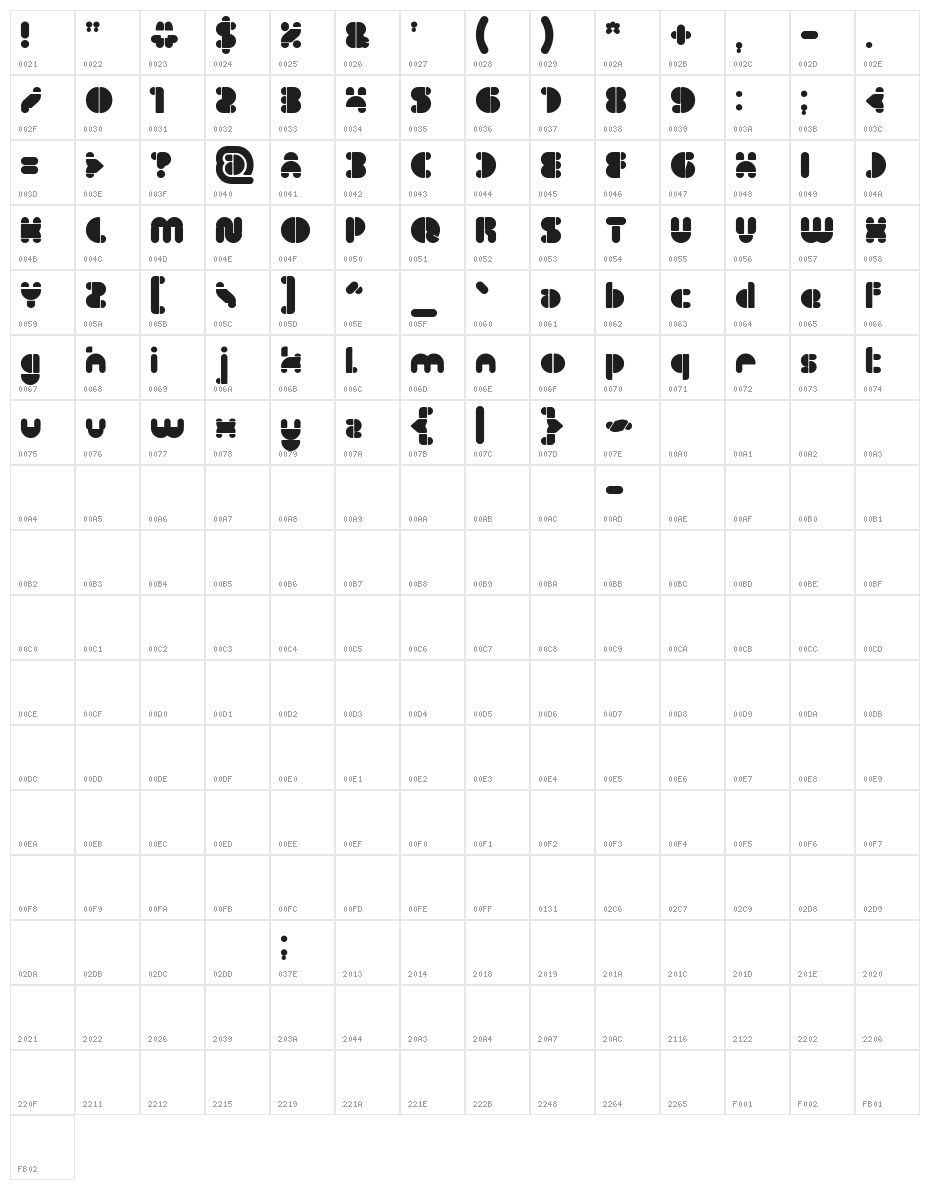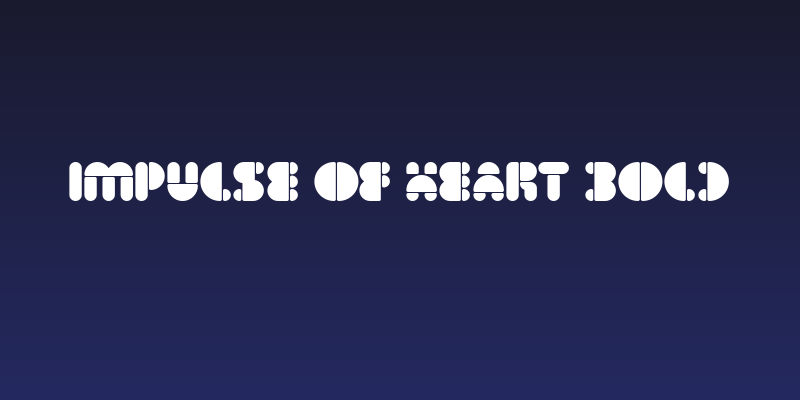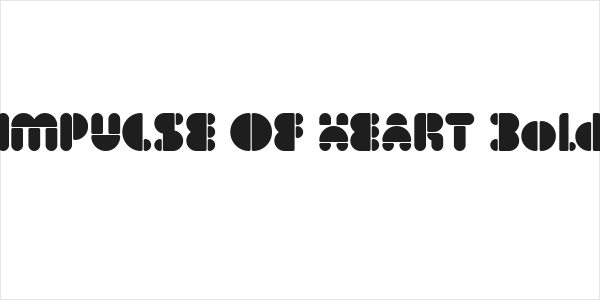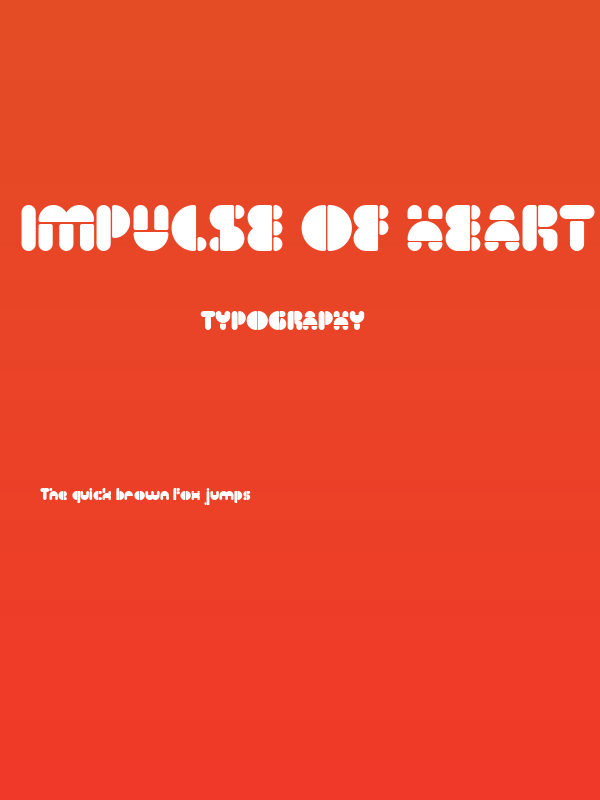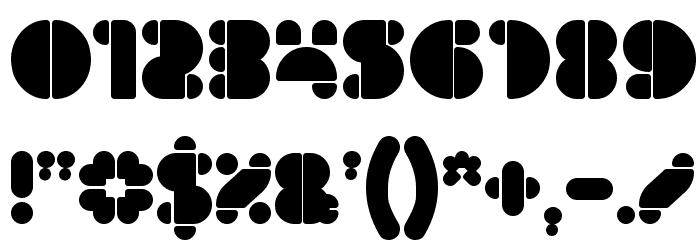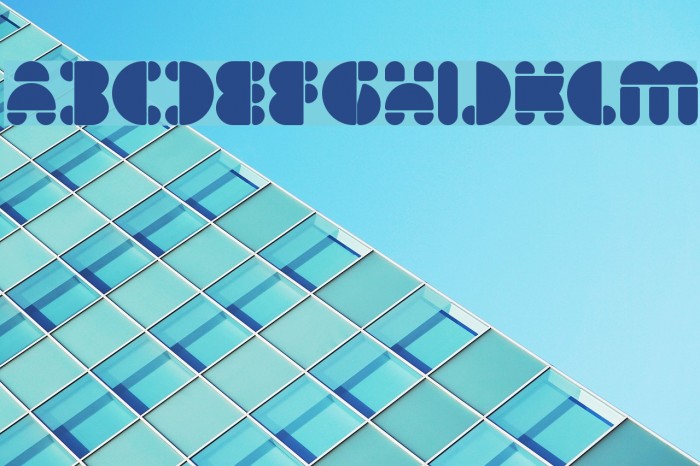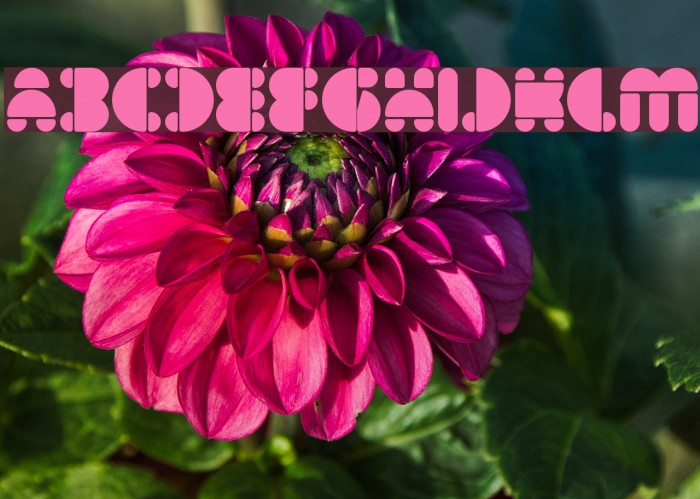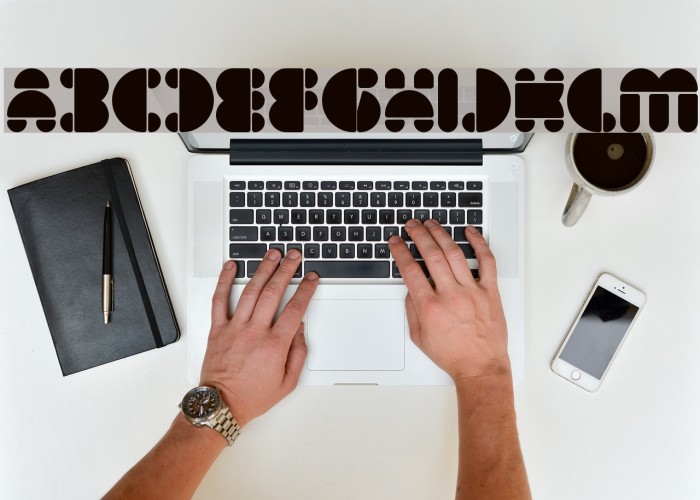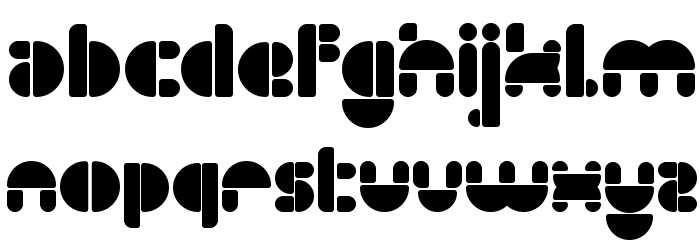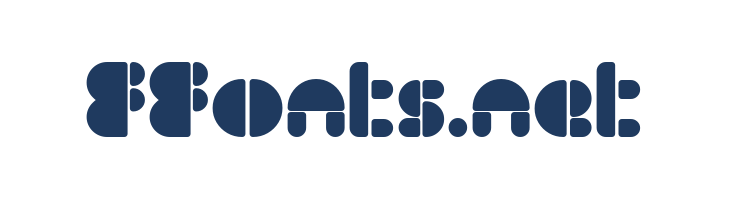
IMPULSE OF HEART Bold Font
This font features a bold and geometric design, characterized by its use of circular and semi-circular shapes to form each letter and symbol. The style is highly decorative, with a futuristic and modern aesthetic. The characters are constructed with thick strokes, creating a strong visual impact. The font is particularly notable for its unique approach to letterform design, where negative space plays a crucial role in defining each character. This results in a highly stylized and artistic appearance, making it ideal for creative and attention-grabbing applications.
| Proposed Projects | Ideal for use in branding, poster design, album covers, and any project requiring a modern and artistic touch. |